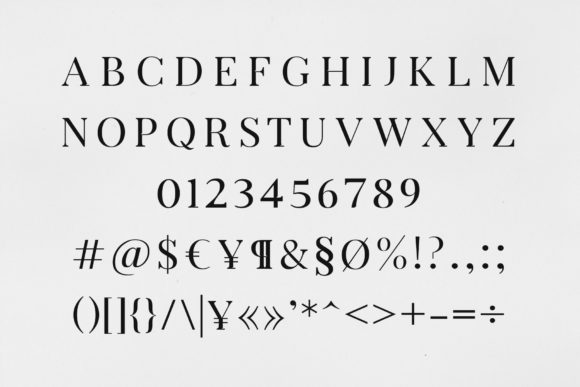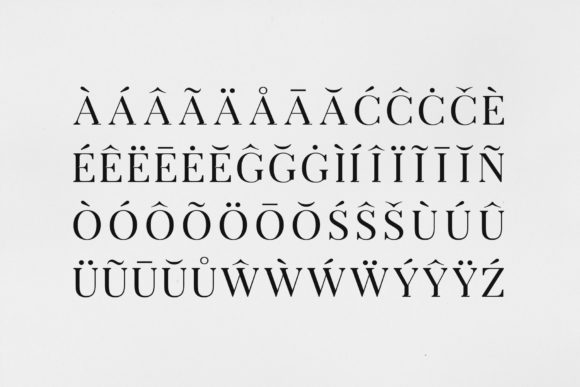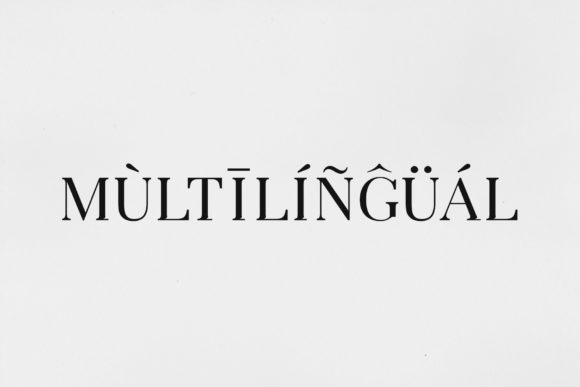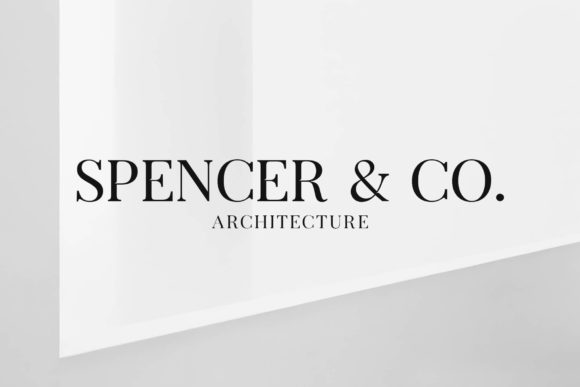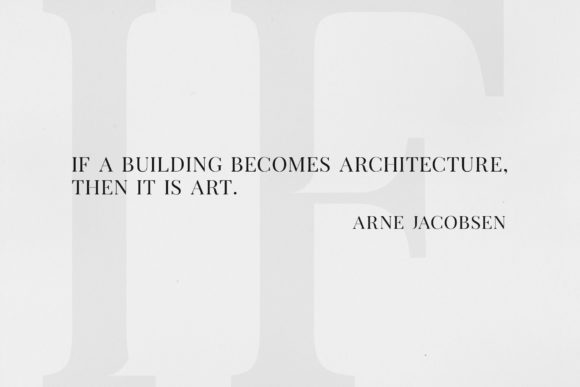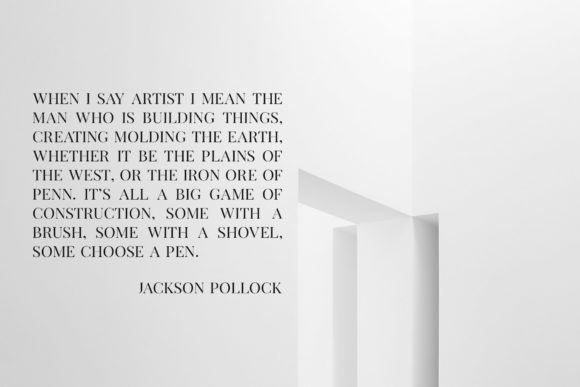
Introducing Arterio: The Timeless Serif Font for Elegant Designs
Are you tired of using the same old fonts in your designs? Look no further than Arterio, a classy and bold serif typeface that’s sure to elevate your work to the next level. In this article, we’ll take a closer look at what makes Arterio so special and why it’s a must-have for designers and crafters alike.
A Brief Overview of Arterio
Arterio is a serif font that exudes elegance and sophistication. Its bold and classy design makes it perfect for a wide range of applications, from luxury branding and advertising to packaging and editorial design. With its timeless appeal, Arterio is a font that will never go out of style.
What Sets Arterio Apart
So, what makes Arterio so unique? Here are just a few features that set it apart from other fonts:
- Classic Serif Design: Arterio’s serif design is inspired by traditional typography, with a modern twist. Its classic look and feel make it perfect for designs that require a touch of elegance.
- Bold and Elegant: Arterio is a bold font that’s not afraid to make a statement. Its elegant design ensures that it will add a touch of sophistication to any design.
- Highly Versatile: Arterio is a highly versatile font that can be used in a wide range of applications, from headings and titles to body text and captions.
- Exceptional Legibility: Arterio’s clear and legible design ensures that it will be easy to read, even at small sizes.
Why Designers and Crafters Love Arterio
Arterio has quickly become a favorite among designers and crafters, and for good reason. Here are just a few reasons why:
- Easy to Use: Arterio is a straightforward font to use, with a simple and intuitive design that makes it easy to get started.
- Customizable: Arterio is highly customizable, with a range of weights and styles to choose from. This makes it easy to tailor the font to your specific design needs.
Real-World Applications for Arterio
Arterio is a versatile font that can be used in a wide range of applications, including:
- Luxury Branding: Arterio’s elegant design makes it perfect for luxury brands looking to create a sophisticated and high-end image.
- Advertising: Arterio’s bold design ensures that it will grab attention and make a lasting impression in advertising campaigns.
- Packaging Design: Arterio’s clear and legible design makes it perfect for packaging design, where clarity and readability are essential.
- Editorial Design: Arterio’s classic design makes it a great choice for editorial design, where a touch of elegance and sophistication is often required.
In conclusion, Arterio is a classy and bold serif font that’s perfect for designers and crafters looking to elevate their work to the next level. Its timeless appeal, elegant design, and exceptional legibility make it a must-have for a wide range of applications. Whether you’re working on a luxury branding project, an advertising campaign, or a packaging design, Arterio is the perfect choice.